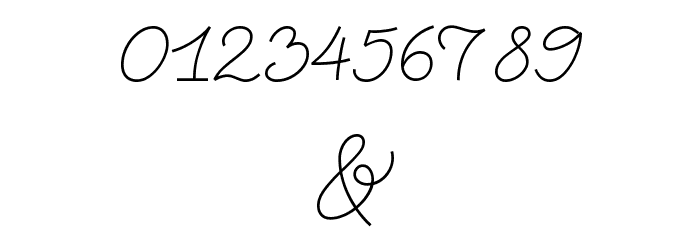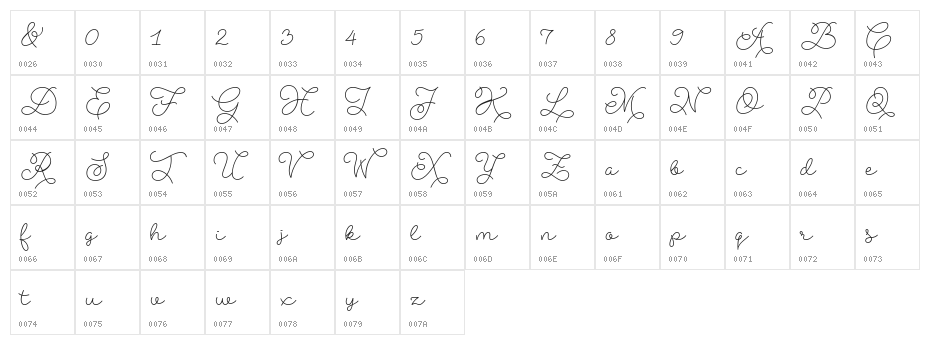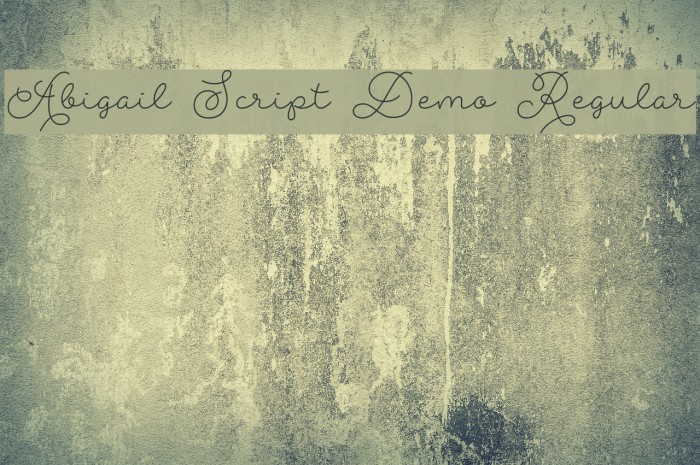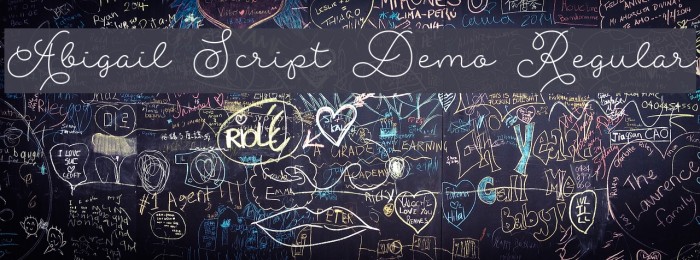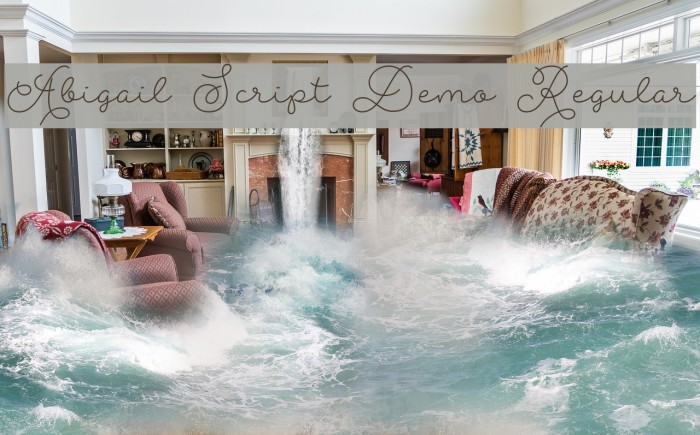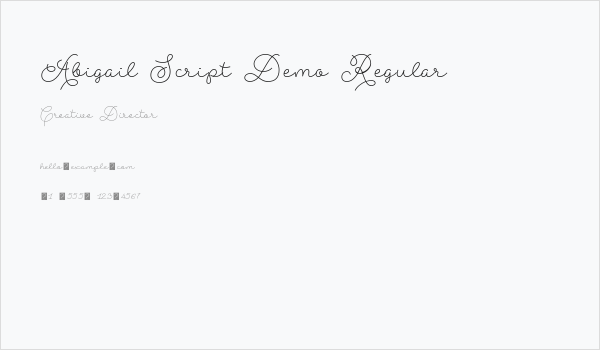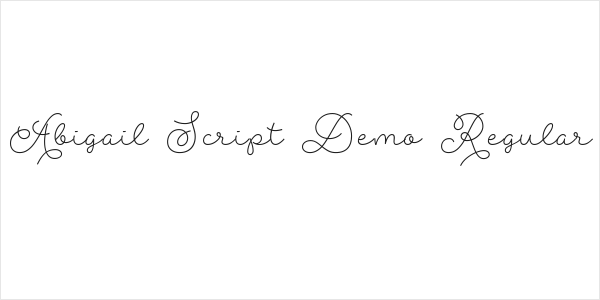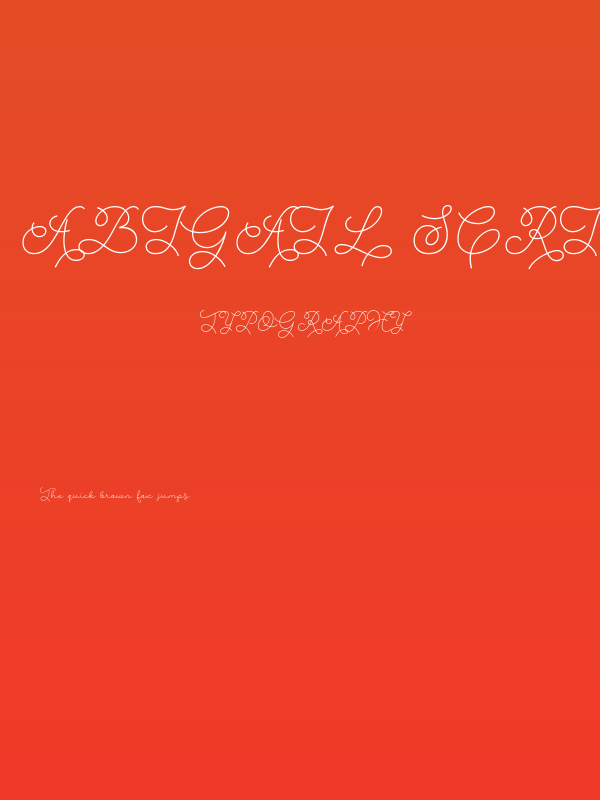
Abigail Script Demo Regular Font
Abigail Script Demo Regular Description
This elegant script font features a flowing, cursive style with intricate loops and swirls, giving it a sophisticated and decorative appearance. The uppercase letters are particularly ornate, with elaborate flourishes that enhance their visual appeal. The lowercase letters maintain a smooth, connected flow, characteristic of traditional cursive handwriting. Numbers and special characters are designed with the same attention to detail, ensuring a cohesive look across all elements. The font's delicate lines and graceful curves make it suitable for projects that require a touch of elegance and refinement.
| Proposed Projects | Ideal for wedding invitations, elegant branding, greeting cards, and decorative signage. |